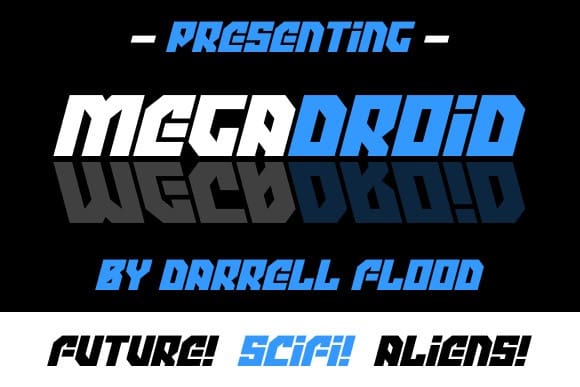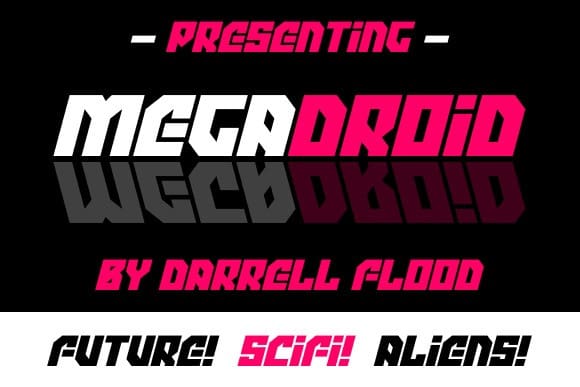
Megadroid Futuristic Font
Megadroid Futuristic Font, a futuristic scifi font in an energetic, angular style. Diagonal cuts add visual flair. Perfect for alien invasions, robot takeovers and mad rave parties! (Alternates for i and j can be found in uppercase.)